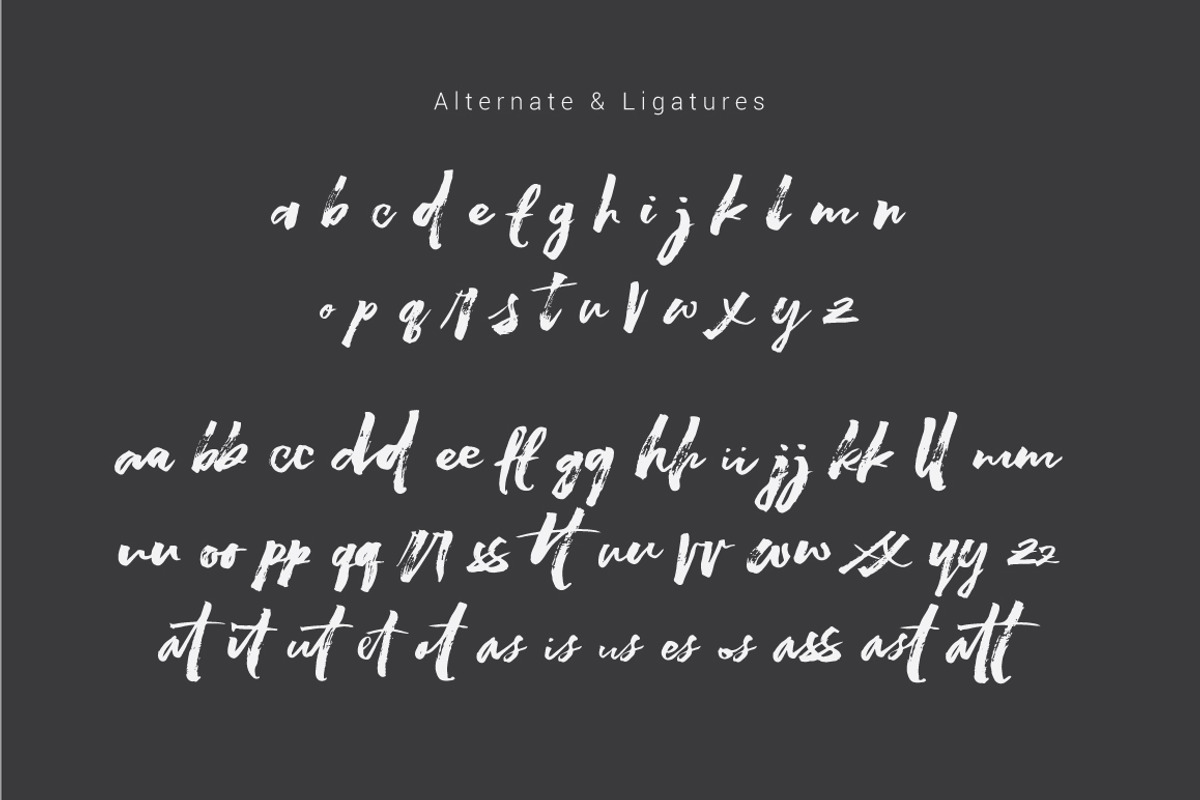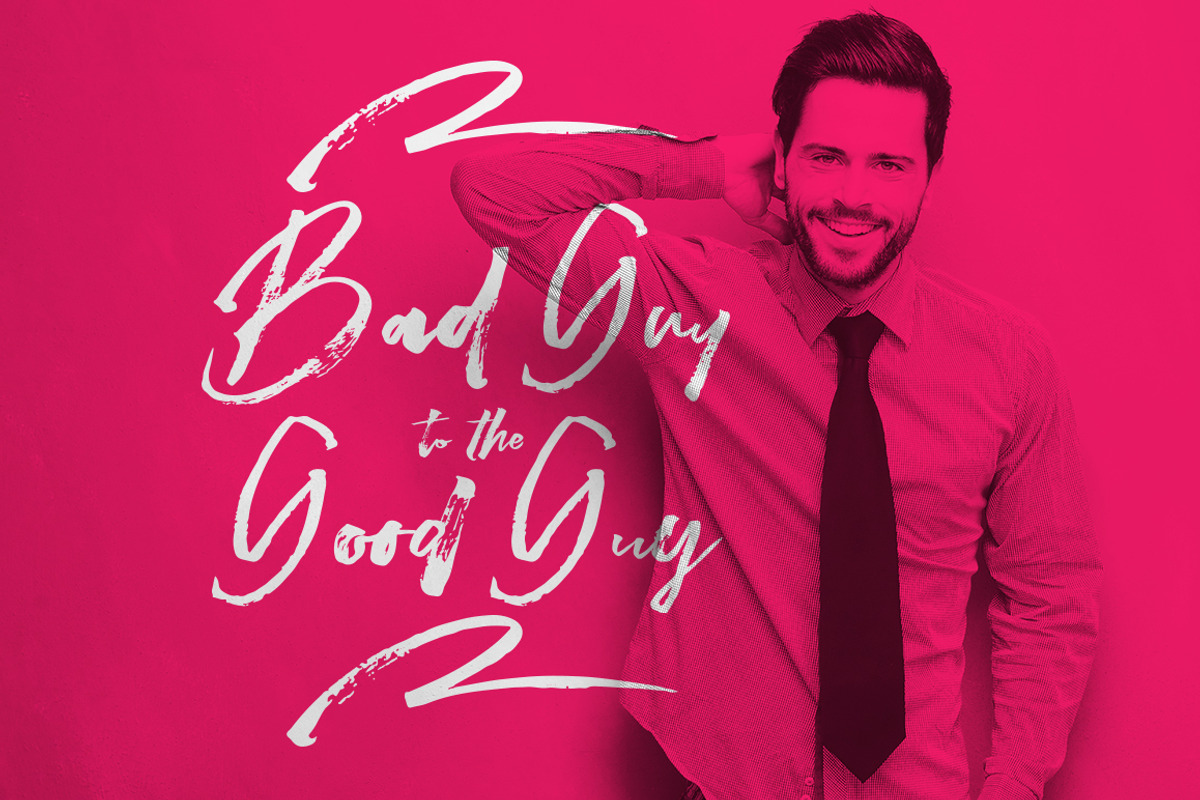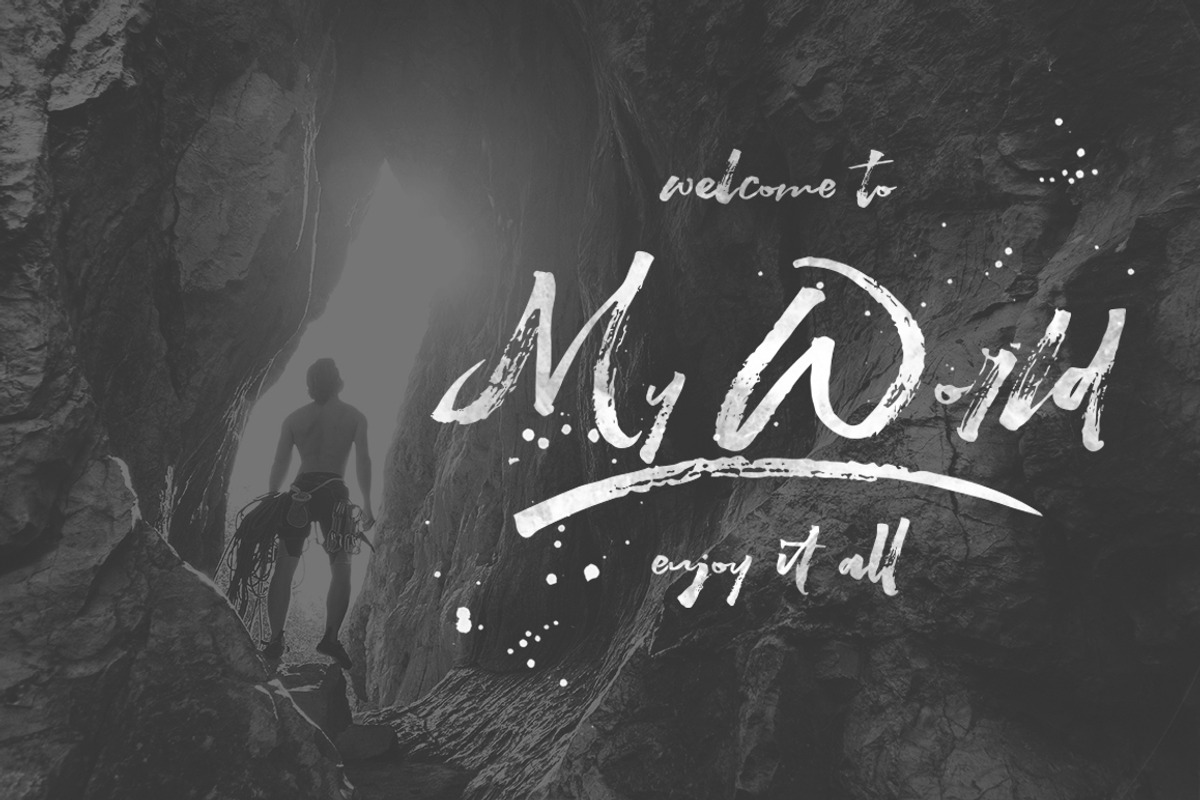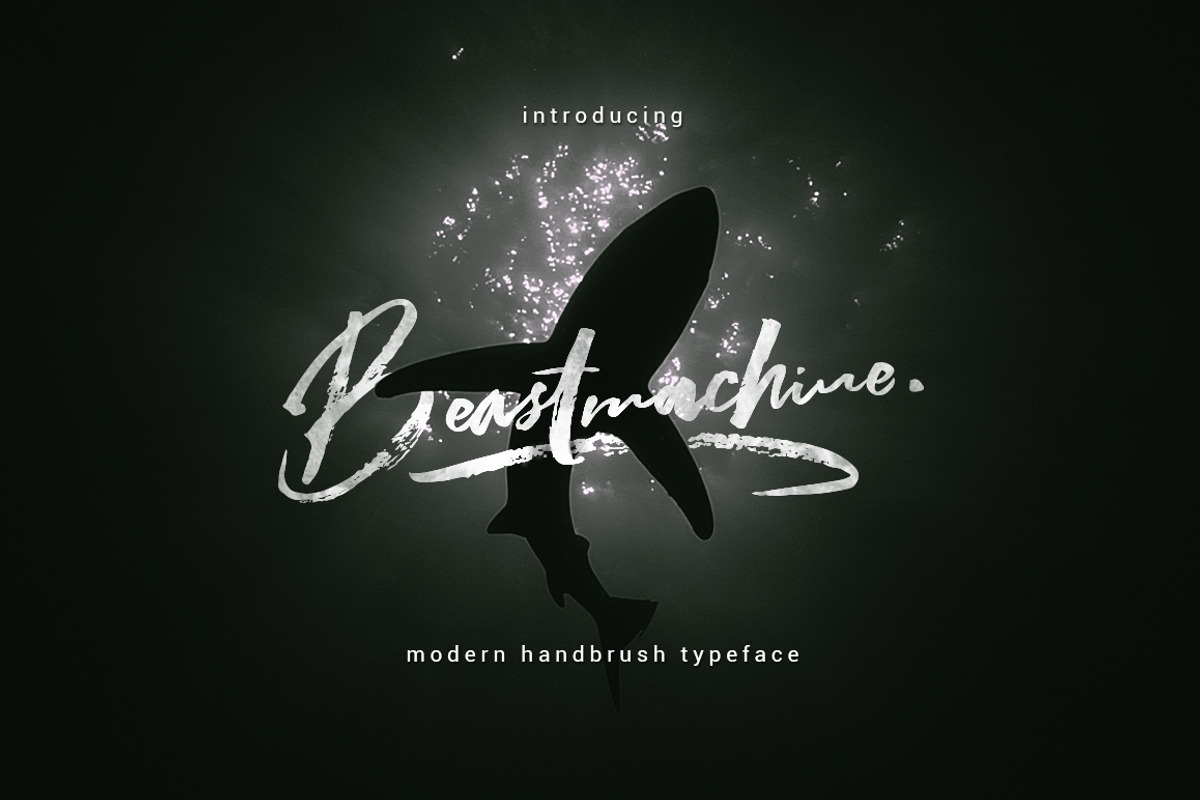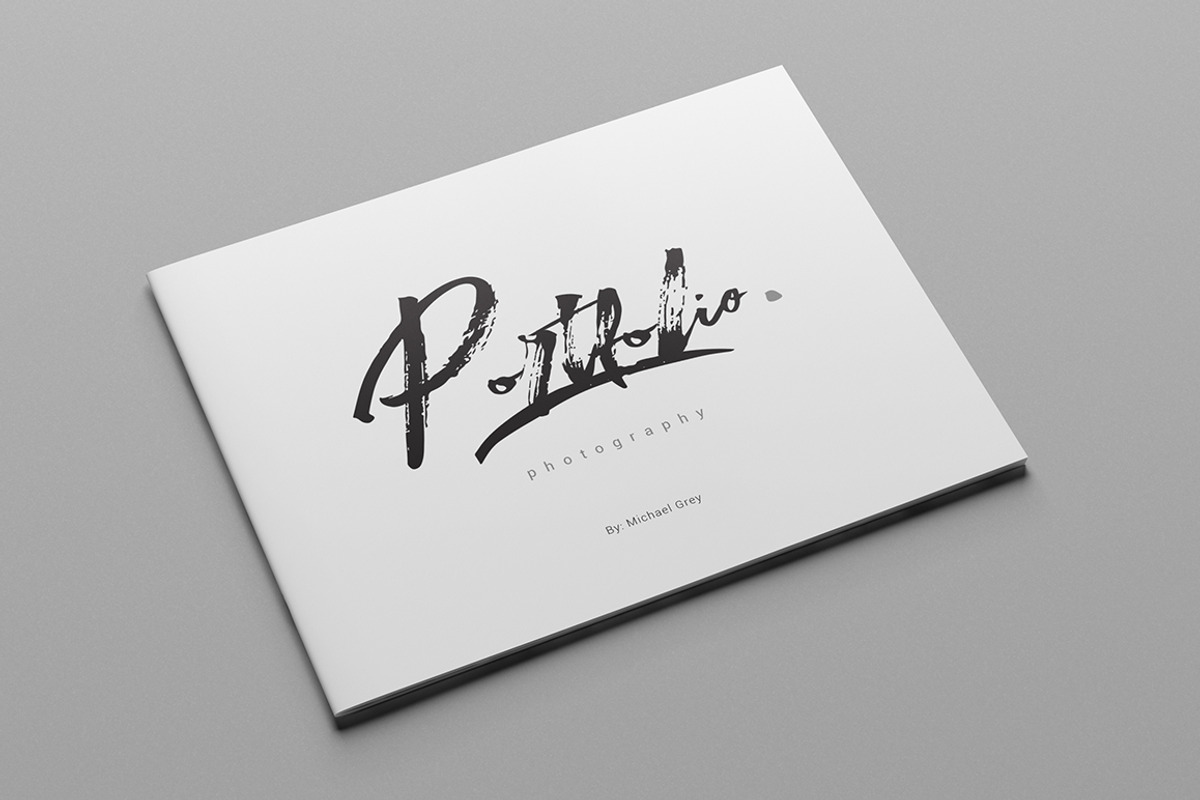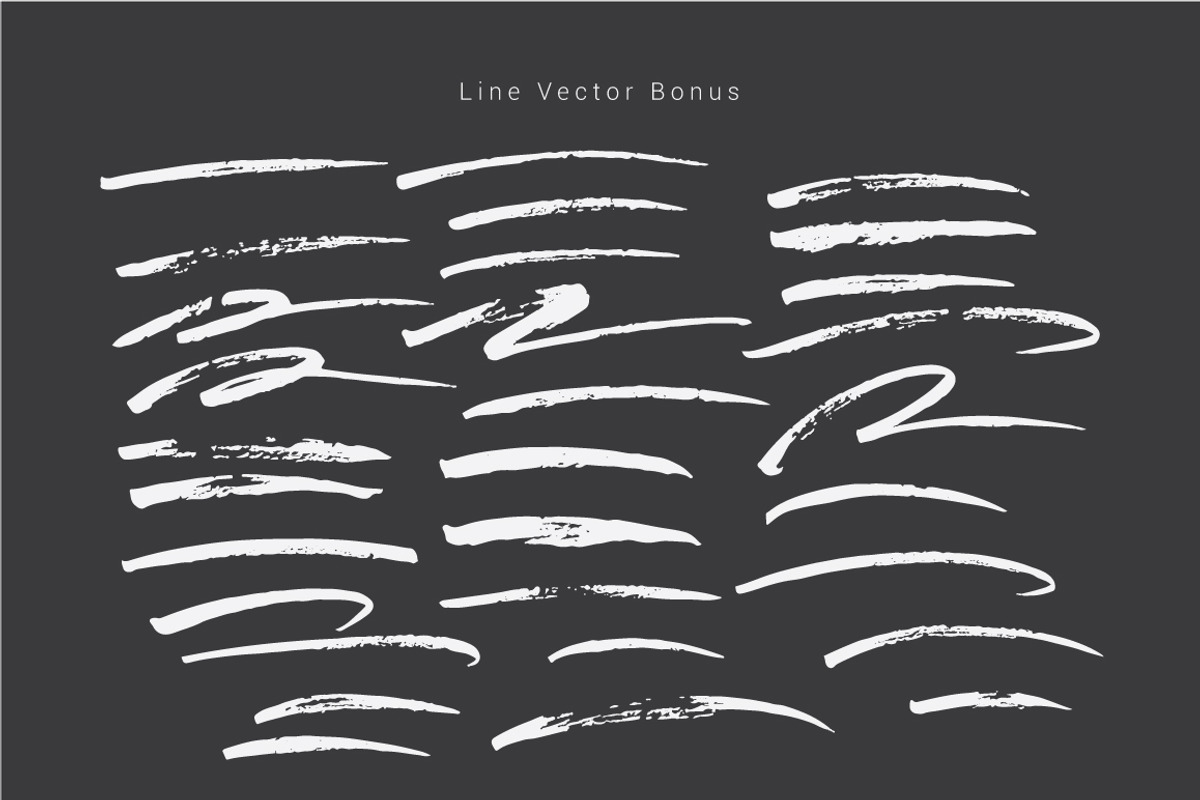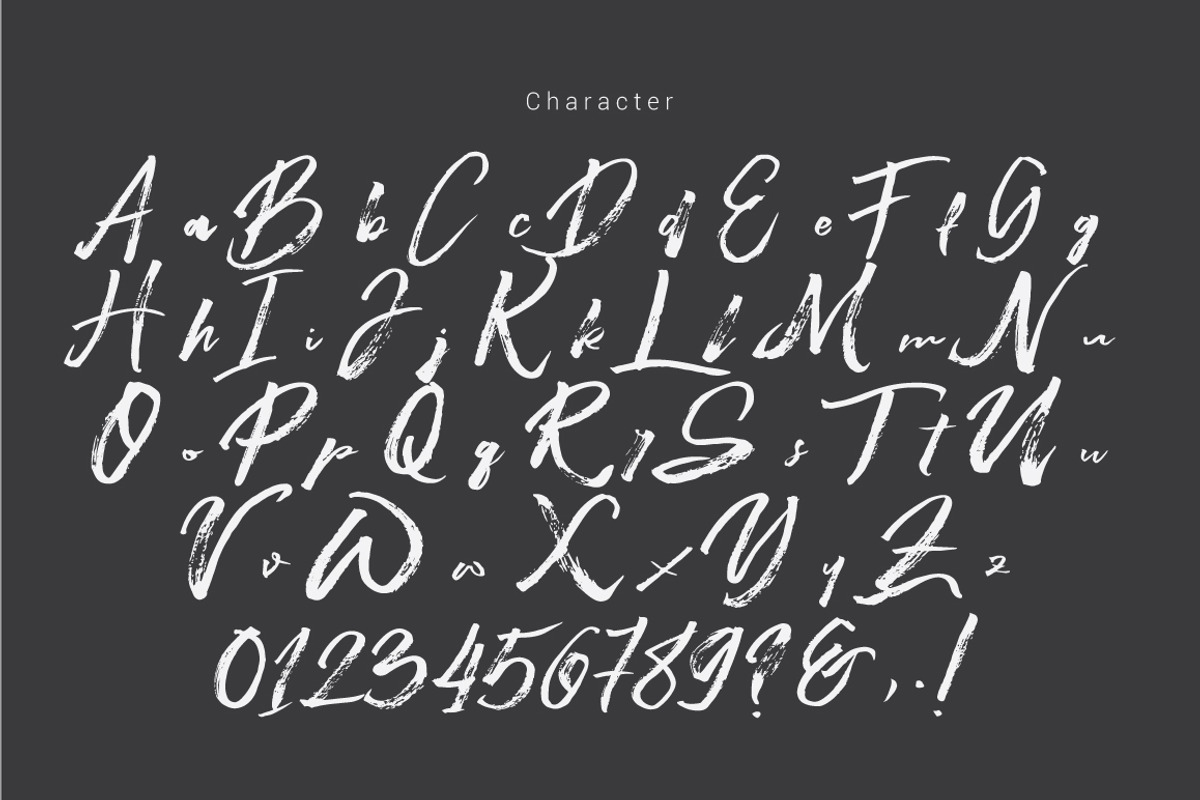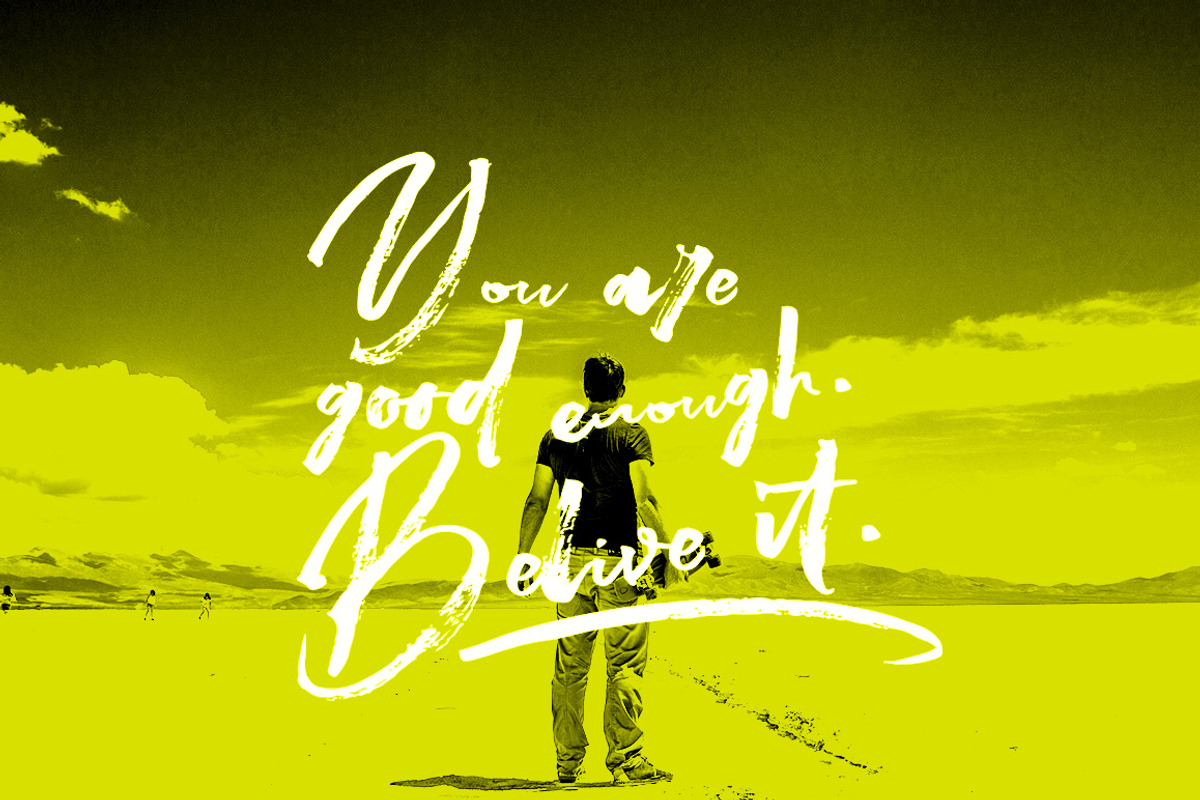
Beastmachine Typeface
Beastmachine Typeface by Thirtypath Studio is a font selected for branding, posters, packaging, typography.
- Beastmachine has standard ligatures included - to give the font a more natural, scripted look when you have any double letters in your desig
- It also has multilingual support with accented characters for international users.
Why Beastmachine Typeface is worth a look
Beastmachine Typeface by Thirtypath Studio fits naturally into Branding, posters, packaging, typography.